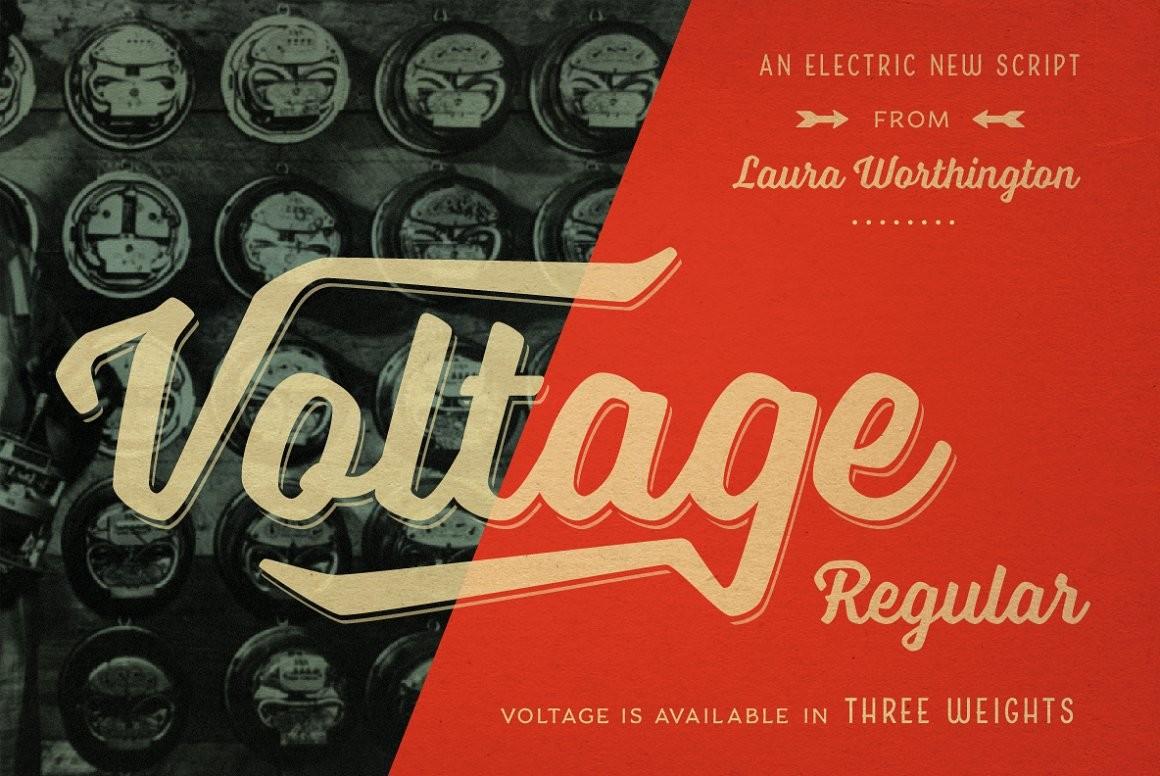
Voltage Family Font Description
Voltage, created by award-winning typeface and lettering designer Laura Worthington, is an unexpected and energetic standout in the world of script fonts, breaking free from formal classifications while retaining the degree of personality we treasure in hand lettering. Her primary goal was unique: readability with personality. Gone are the large loops, the frilliness, and the choice of beauty and elegance over utility.
Voltage takes the script font in a different direction, with an emphasis on practicality and uniformity, and with the reader’s needs at the forefront—this is a straightforward, muscular lettering font, assertive, yet down-to-earth. The beauty is found in its elegantly-wrought construction, its versatility, its references to a different era, and in the galvanizing swashes and alternates available not only in a professional designer’s software, but to everyone with a computer.
It is not based on naturally-occurring handwriting; it’s clearly a structured lettering form based on balance, a solid rhythm, and uniformity. Script fonts often are quirky. In contrast, this is a workhorse, almost a text version of a script font. Voltage is ideal for headlines, logos, subheads, short sentences, phrases, a short paragraph, and pull quotes. The default setting (without swashes and alternates) is best for phrases and subheads.
Like many of Worthington’s typefaces, Voltage is evocative of a milieu or era. Here, we see the metal lettering on automobiles of the past—with their retro takes on a bright future–and those emblems of an optimistic, hardworking period. Its overall regularity references a time when the machine was king—the late days of the Industrial Age. Imagine vintage instructions on signs or paper; they may be created by machinery or by hand, yet both have that industrial sensibility. We sense visions in the 1950s—and earlier—of what the Nuclear Age would look like. Voltage calls to mind gas stations, machinists, receipts at machine shops, trips to the soda fountain at the drugstore, shopping at the five and dime. Yet, in its twists and small irregularities, we see vestiges of hand-painted signage, the rivets in beloved, old, worn blue jeans, the touch of the ”common man” who, alongside women, built America.
Voltage is versatile. Like those old jeans, the look depends on how and where you use it. You can dress up a good pair of jeans by choosing high heels; you can dress down with sturdy work boots. Because Worthington assigned unicode values to the swashes and alternates, anyone can use their operating system’s Character Map to access them. The options become endless. It can have the spirit of a picnic—casual, fun, and friendly, yet, in other contexts, convey tough mountain-biking. So, use this font for small areas of text and it makes a statement without overpowering the main body text. Or, dig into Voltage swashes and alternates for much larger titles to capture the attention of the reader and create a dramatic presence, such as using the powerful lightning bolt swash that shoots out from the descender of the lowercase g. Electrifying!
The challenge, as Worthington worked on Voltage, was noting that script fonts are almost always notoriously difficult to read. How could she strive for clarity, readability, and uniformity, yet retain the vivid personality that Voltage (and its designers and readers) deserve? She used a tall x-height, minimal detailing in the lowercase ascenders and descenders, worked on low contrast, and amped it up to make it heavier and add substance. It comes in 3 weights—light, regular, and bold—and even the regular weight is as substantial as many bolds in other fonts. In fact, it is one of the few script fonts that you can use with confidence at a relatively small size (e.g., 18 pt) in a short paragraph. No one letter dominates the others. Stems have a weighty base but have light strokes in many letters for clarity and distinctiveness. The looped descenders of the lowercase g and other letters use a thin stroke that curves and thickens as it rises up to meet the next letter, making the loop lighter and therefore more legible than a large uniform loop.
This most magnetic typeface provides 154 unique swash designs (that yield a total of 348 swash variations), 39 alternates, and 15 ligatures.